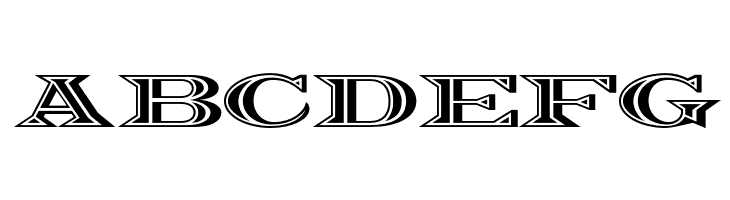
OPTIChisel-Normal Font
A bold, chiseled serif font with a three-dimensional, engraved appearance.
OPTIChisel-Expanded Font
A bold, chiseled font with a three-dimensional effect and expanded width.